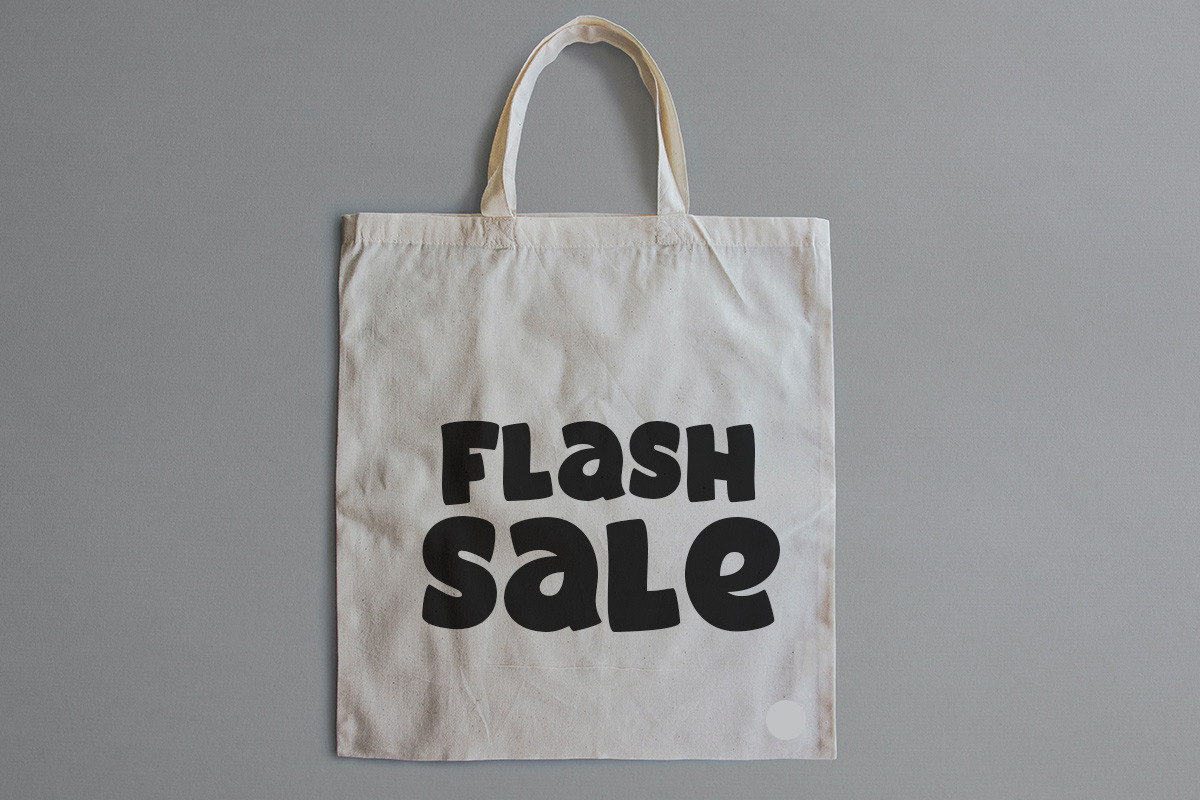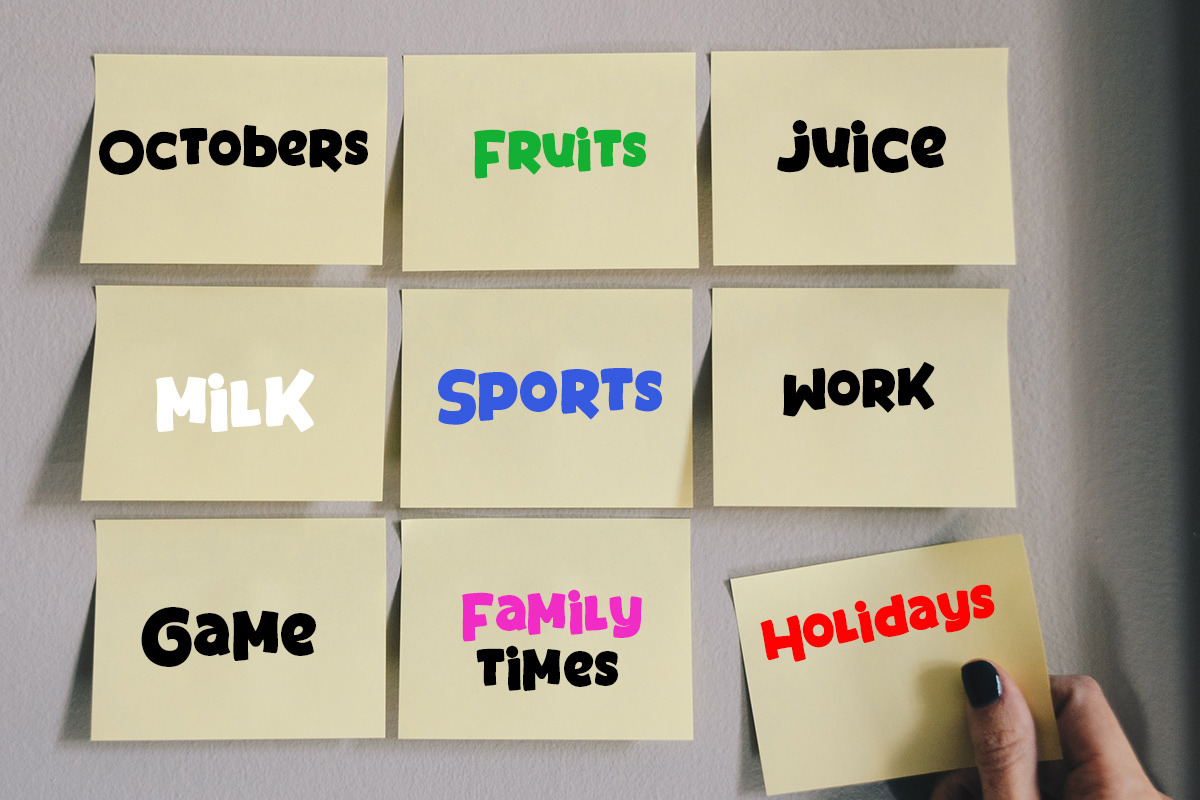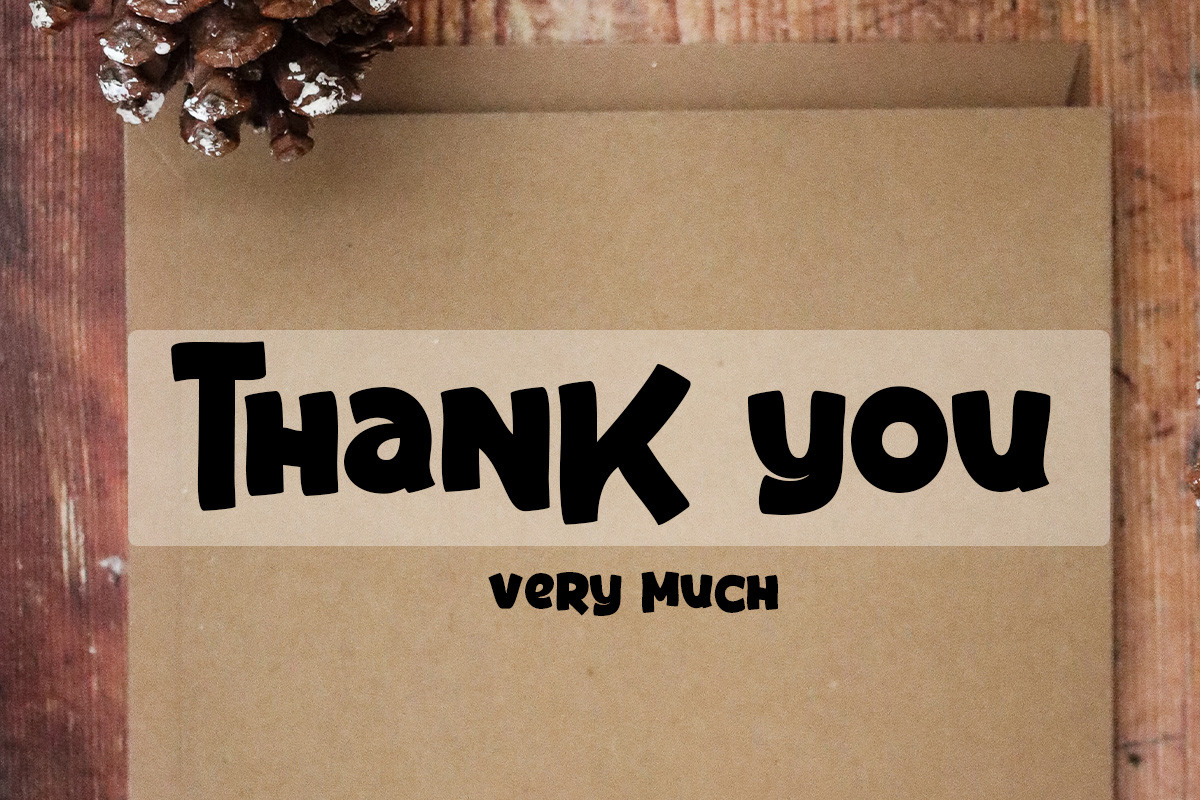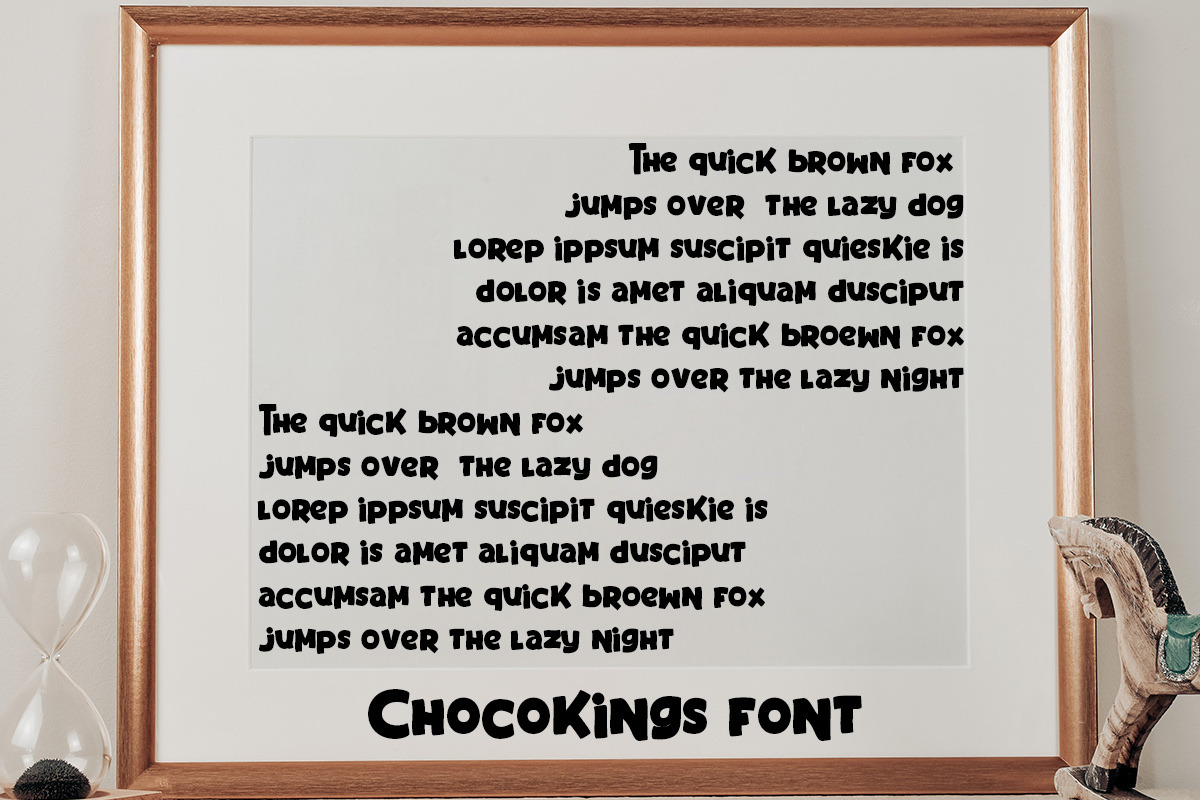
Chocokings
Chocokings this is a cute and unique display font, very suitable for your various design needs, the midget shape is very charming and clear to read, make this your design choice in the display category